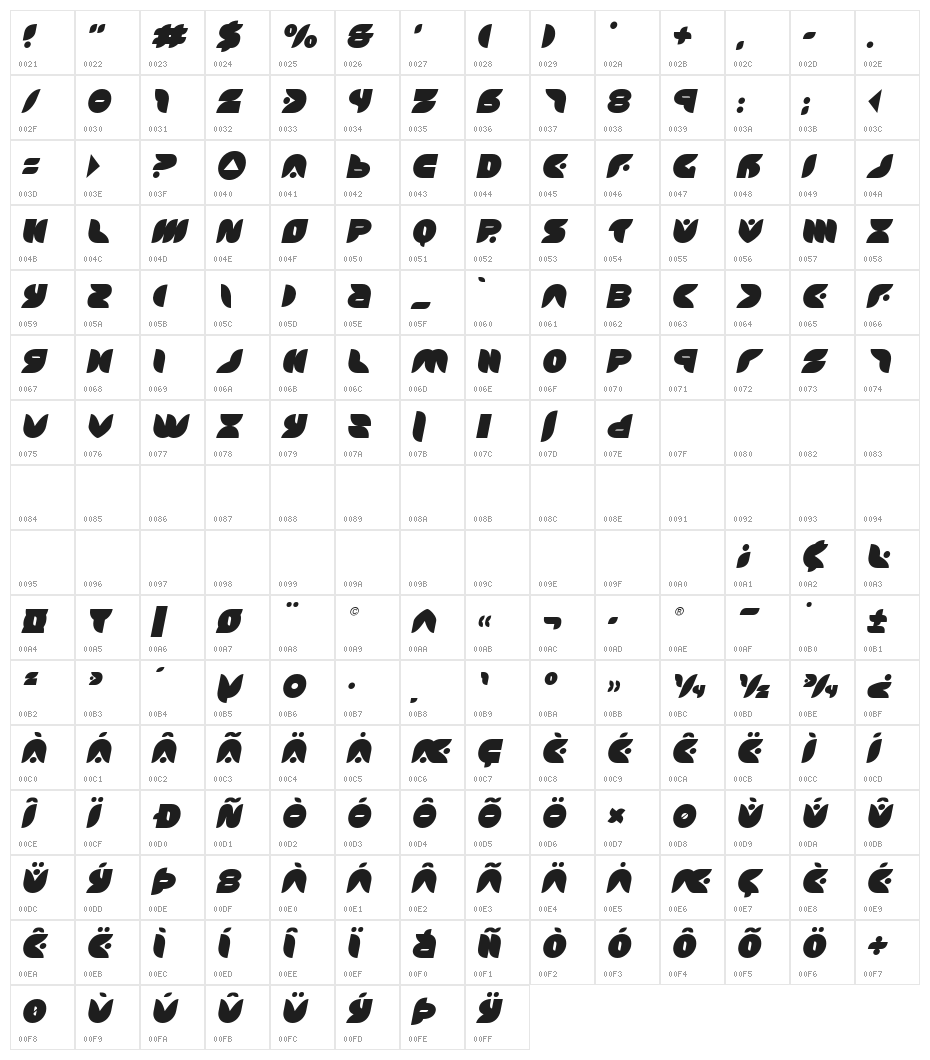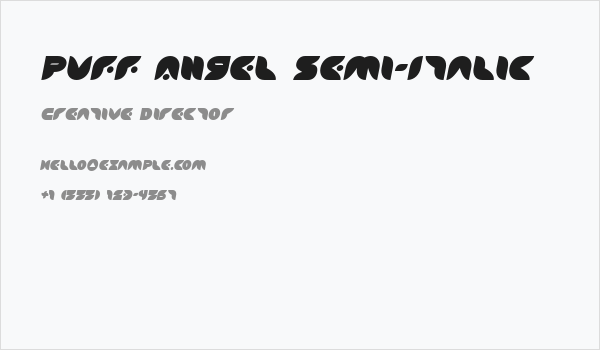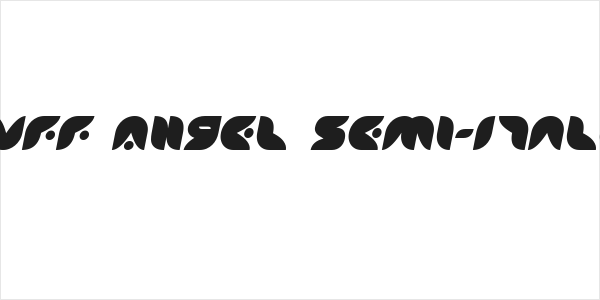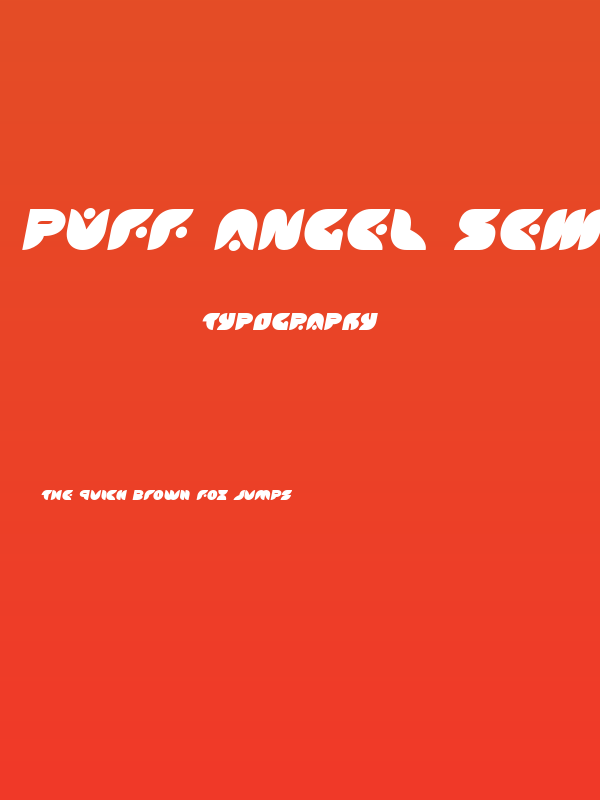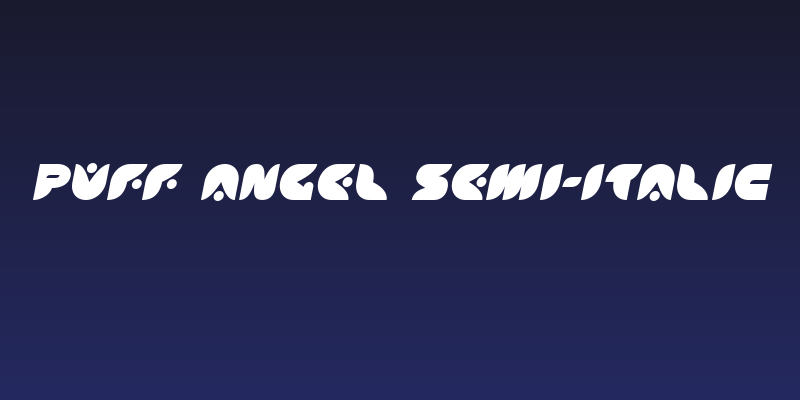
Puff Angel Semi-Italic Font
Puff Angel Semi-Italic Description
This font features a bold and playful design with rounded, semi-italicized characters. The letters are crafted with a unique, puffed appearance, giving them a whimsical and modern feel. The strokes are thick and consistent, creating a strong visual impact. The characters are slightly condensed, enhancing the boldness and making it suitable for eye-catching designs. The font includes a full set of uppercase and lowercase letters, numbers, and a variety of special characters, all maintaining the same stylistic approach. Its distinctive style makes it ideal for creative projects that require a fun and engaging typeface.
| Proposed Projects | Perfect for posters, children's books, playful branding, and creative advertising. |